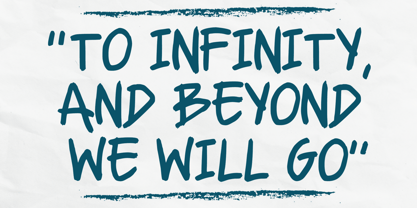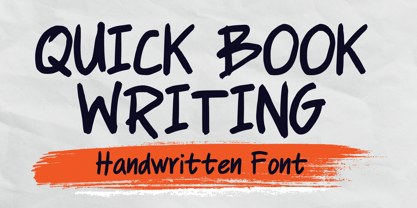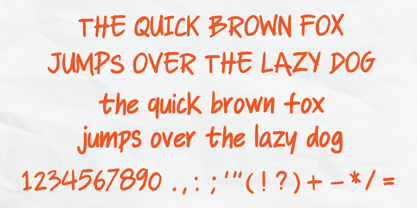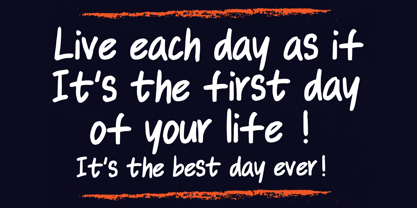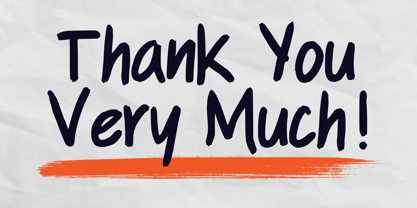
Quick Book Writing
by Mvmet
The Quick Book Writing Font Family was designed by Gabriel Valentinus and published by Mvmet. Quick Book Writing contains 1 styles. More about this family
Introducing "Quick Book Writing," your go-to handwriting font designed to add an enchanting yet swift touch to your creative projects. This effortlessly playful font is incredibly versatile, adapting seamlessly to a multitude of applications. Whether it's for everyday notetaking, vibrant school projects, designing whimsical children's books, crafting heartfelt greeting cards, or creating eye-catching posters, Quick Book Writing enhances your designs with a personal touch. The font truly shines in t-shirt designs and imaginative stickers, infusing an extra layer of casual charm. Prepare to be captivated by its unique style and utilize Quick Book Writing to bring your beautiful designs to life!
Designers: Gabriel Valentinus
Foundry: Mvmet